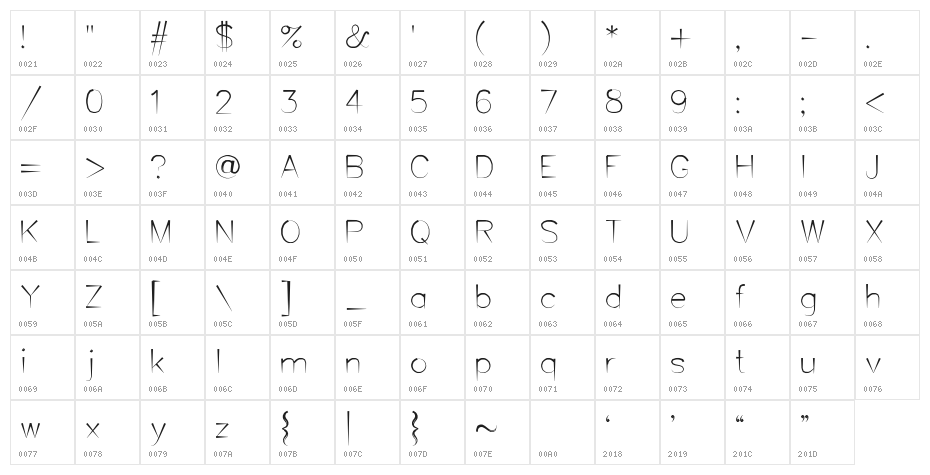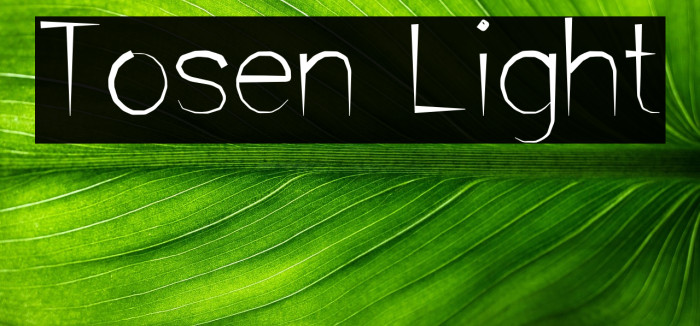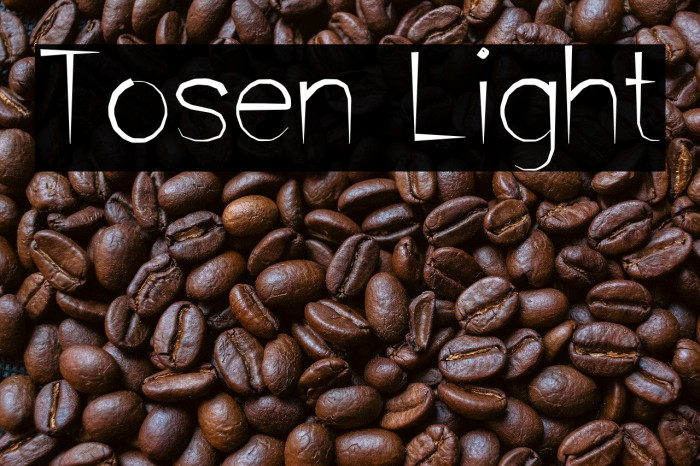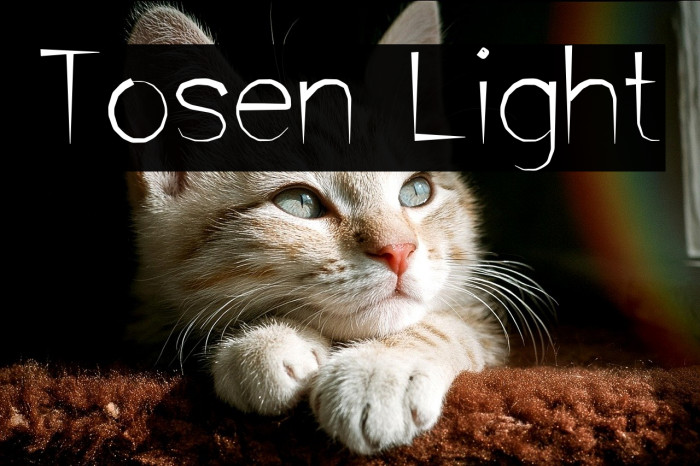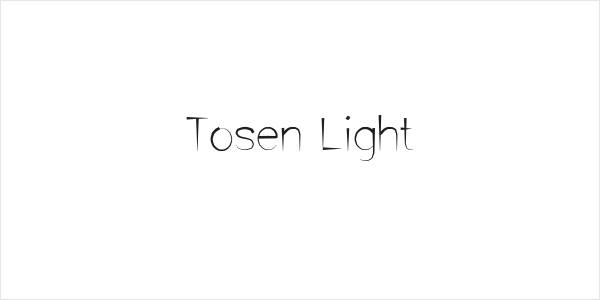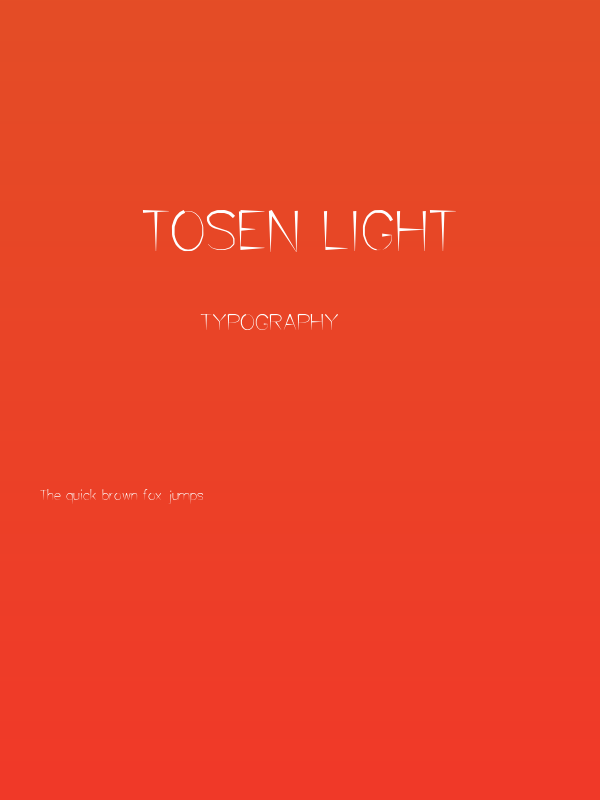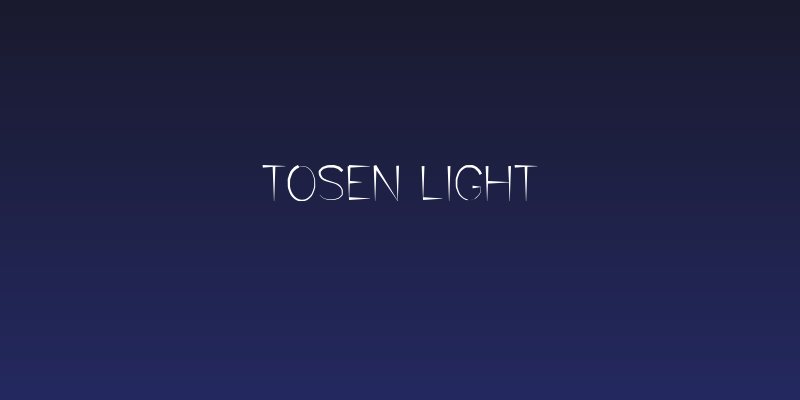
Tosen Light Font
Tosen Light Description
This font features a unique and artistic design with elongated, slender characters that give it a modern and sophisticated appearance. The uppercase and lowercase letters maintain a consistent style, characterized by sharp angles and smooth curves. The numerals are distinct and easily readable, while the special characters complement the overall aesthetic. The font's light weight and narrow width contribute to its elegant and airy feel, making it suitable for creative and contemporary projects.
Proposed ProjectsIdeal for fashion magazines, modern branding, artistic posters, and creative digital content.